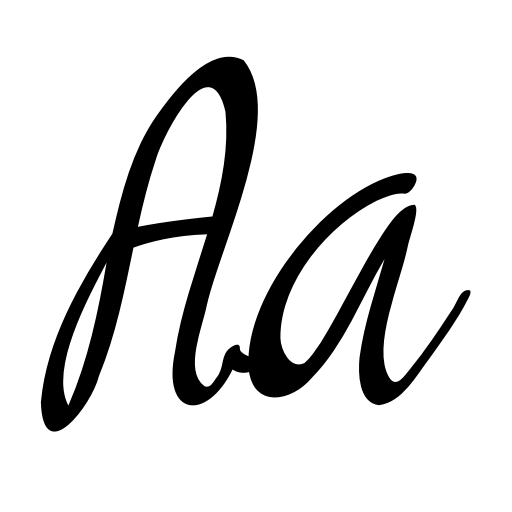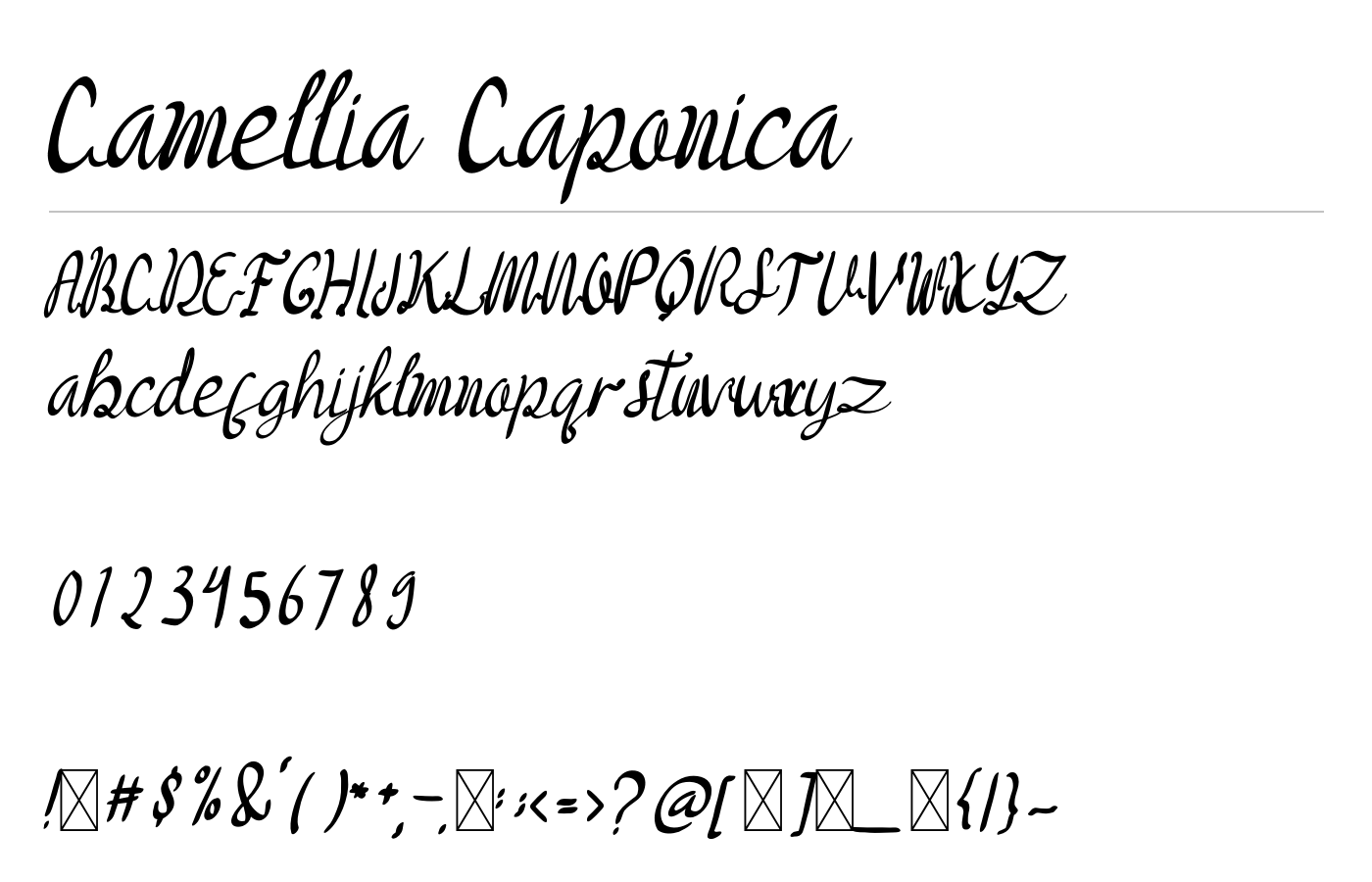
Camellia Caponica is a graceful script font with a handwritten feel, featuring elegant, flowing letterforms and moderate stroke contrast that give it a refined yet approachable character. Its slightly condensed width and smooth curves make it ideal for invitations, branding, and editorial use where a personal, stylish touch is desired. This font works beautifully in contexts that call for a sophisticated yet friendly tone, such as luxury packaging or creative headlines.
Camellia Caponica Font
About Camellia Caponica Font